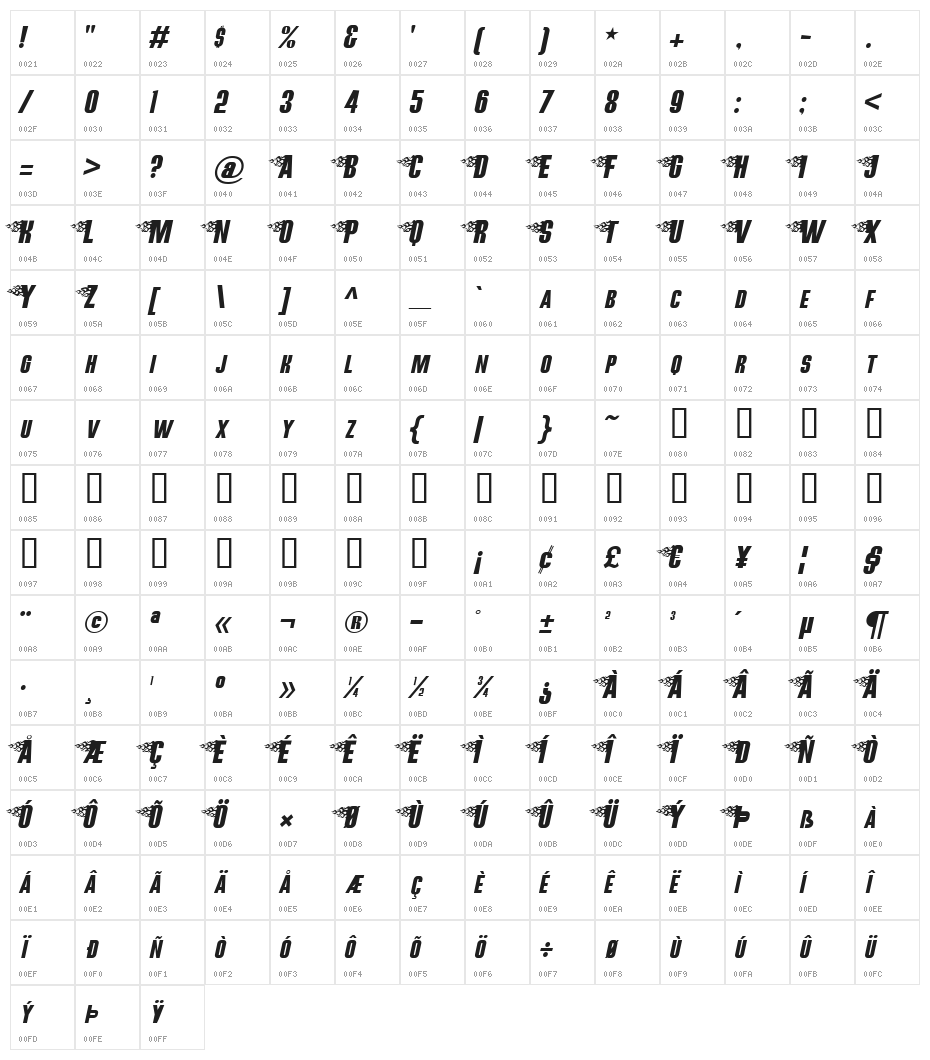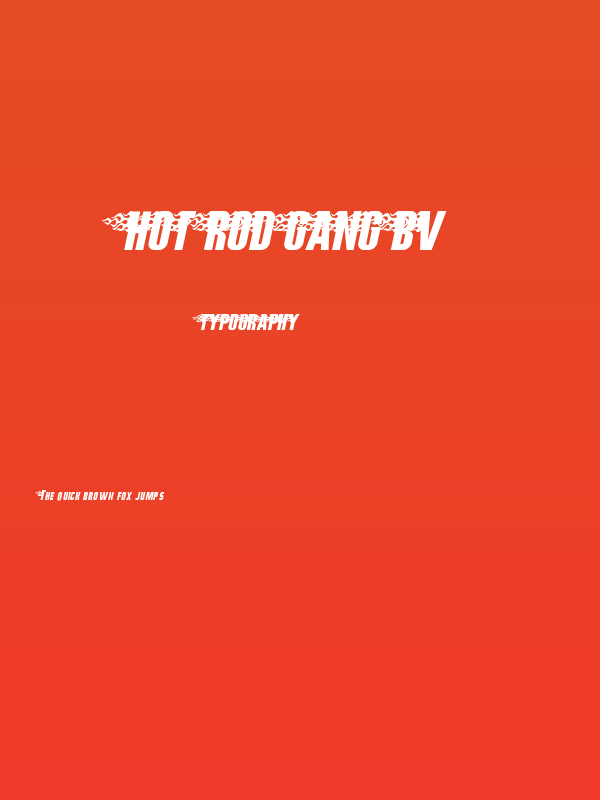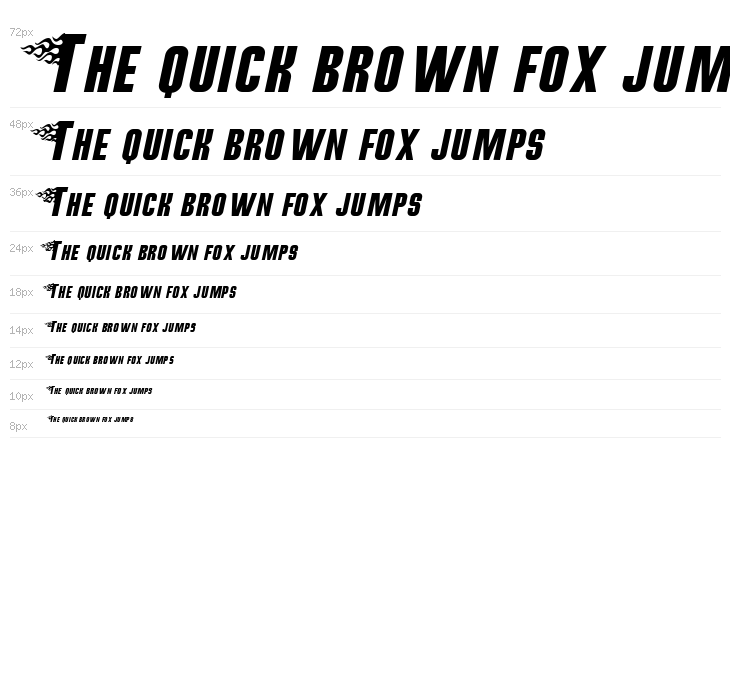
Hot Rod Gang BV Font
Hot Rod Gang BV Description
This bold, dynamic font features a striking, slanted design that conveys a sense of speed and energy. The uppercase letters are robust and angular, with a slight italic slant that enhances the feeling of motion. The lowercase letters maintain this energetic style, providing a cohesive look across different text sizes. Numbers are equally bold and slanted, ensuring consistency throughout. Special characters are designed with the same boldness and slant, making them stand out effectively. The font's unique style is reminiscent of vintage racing aesthetics, making it perfect for projects that require a sense of excitement and movement.
| Overall Style | Vintage, Dynamic |
| Proposed Projects | Ideal for automotive branding, sports event posters, and dynamic logo designs. |